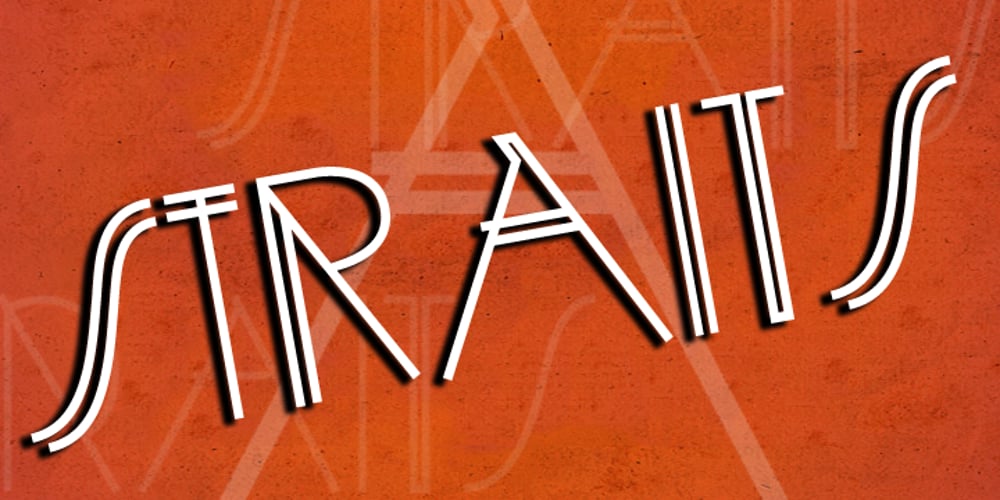
Straits Light Font Family was designed by published by AdultHumanMale. Straits Light contains 2 styles and family package options. Straits is an oddball fun ALL-CAPS font, a modern take / re-imagining of some old Art Deco signage and a sister to my other font Penang. The font is available in 2 weights for now, a light and a medium. In general I think ALL-CAPS steal 26 characters from you, so each letter in each case is a little different, however subtly. This being an ALL-CAPS font I imagine it will work best in Headlines and other bold statements, but buy it and find out. The font is loaded with plenty of extras and glyphs. This was designed to be fun, so I hope you can have some with it.